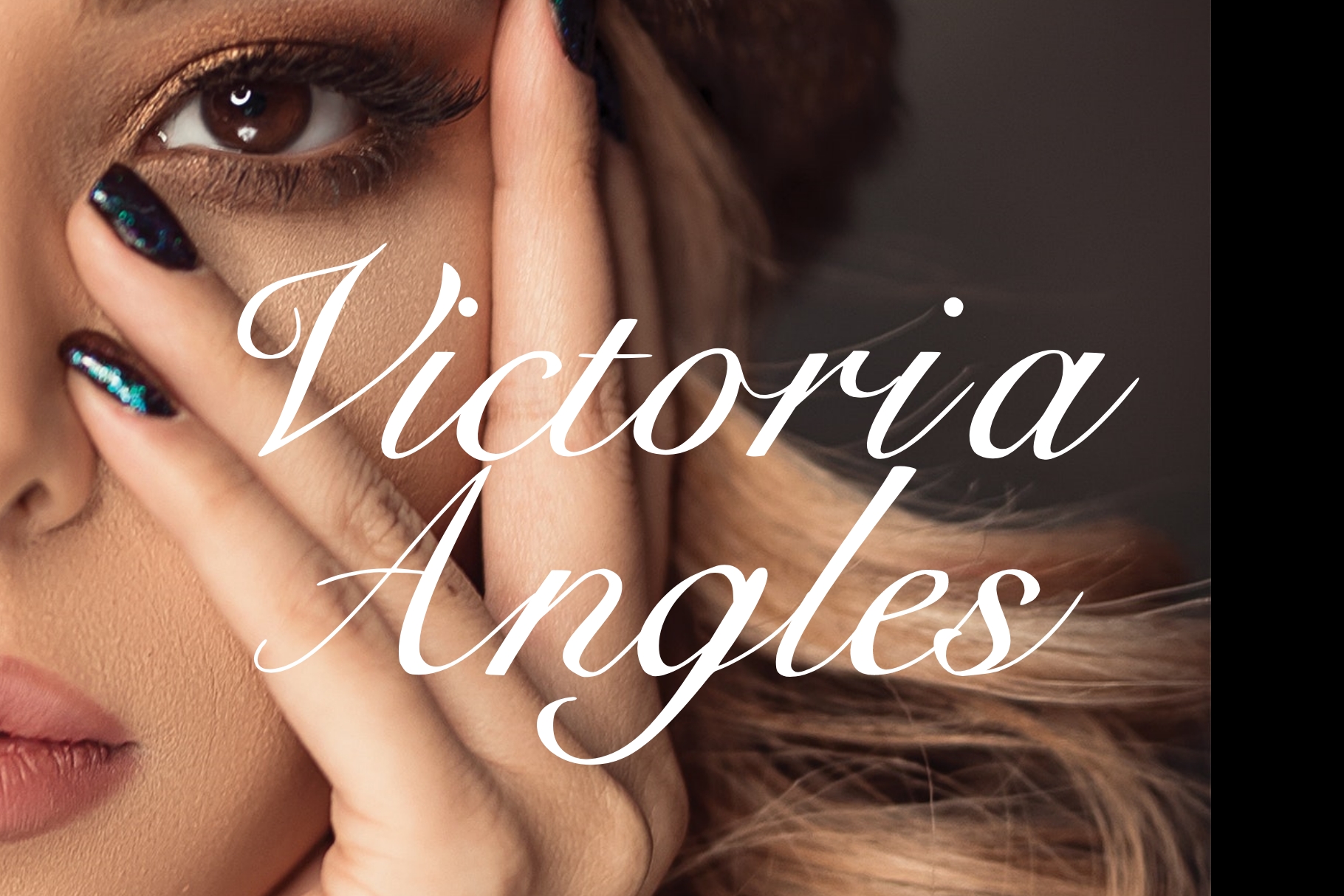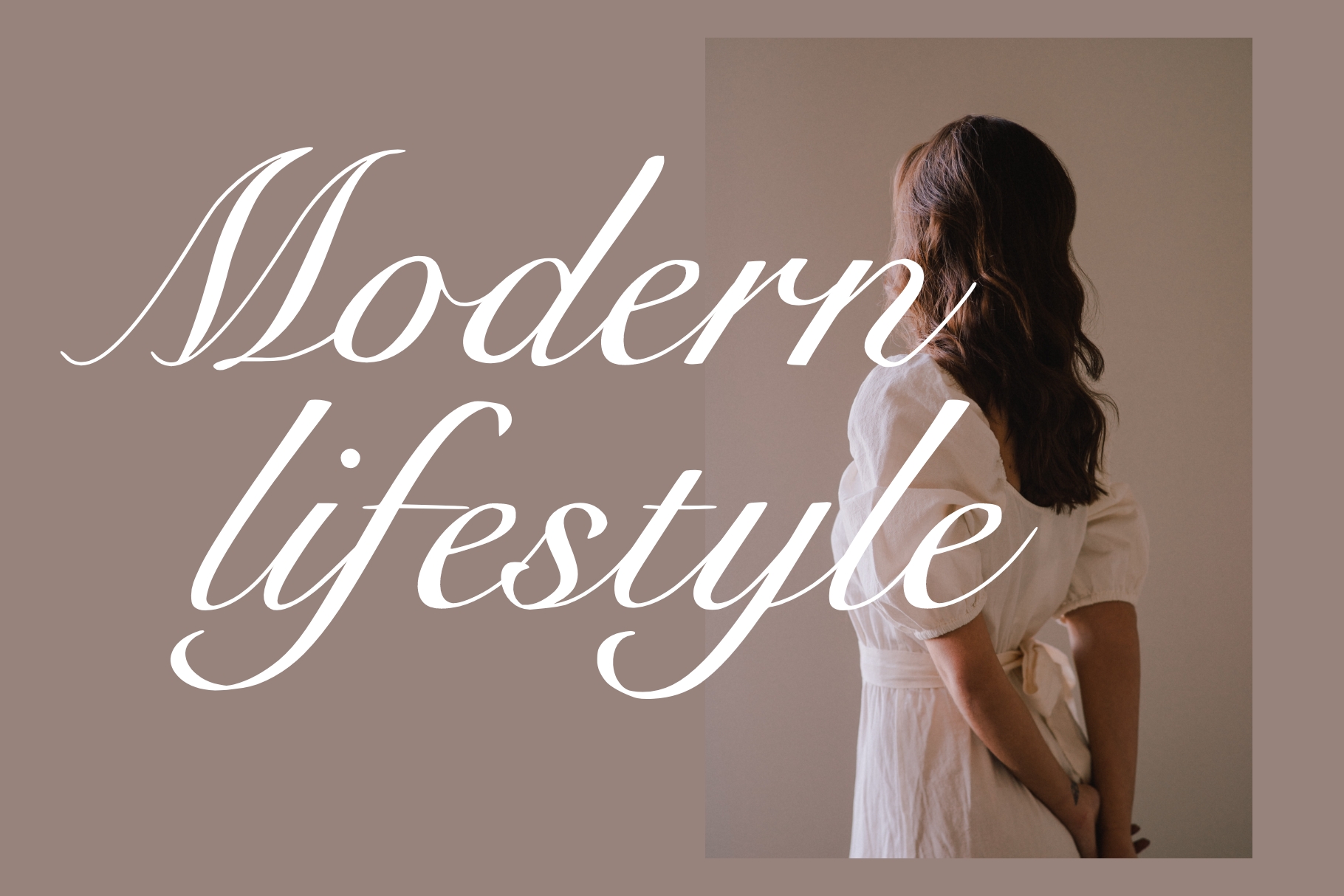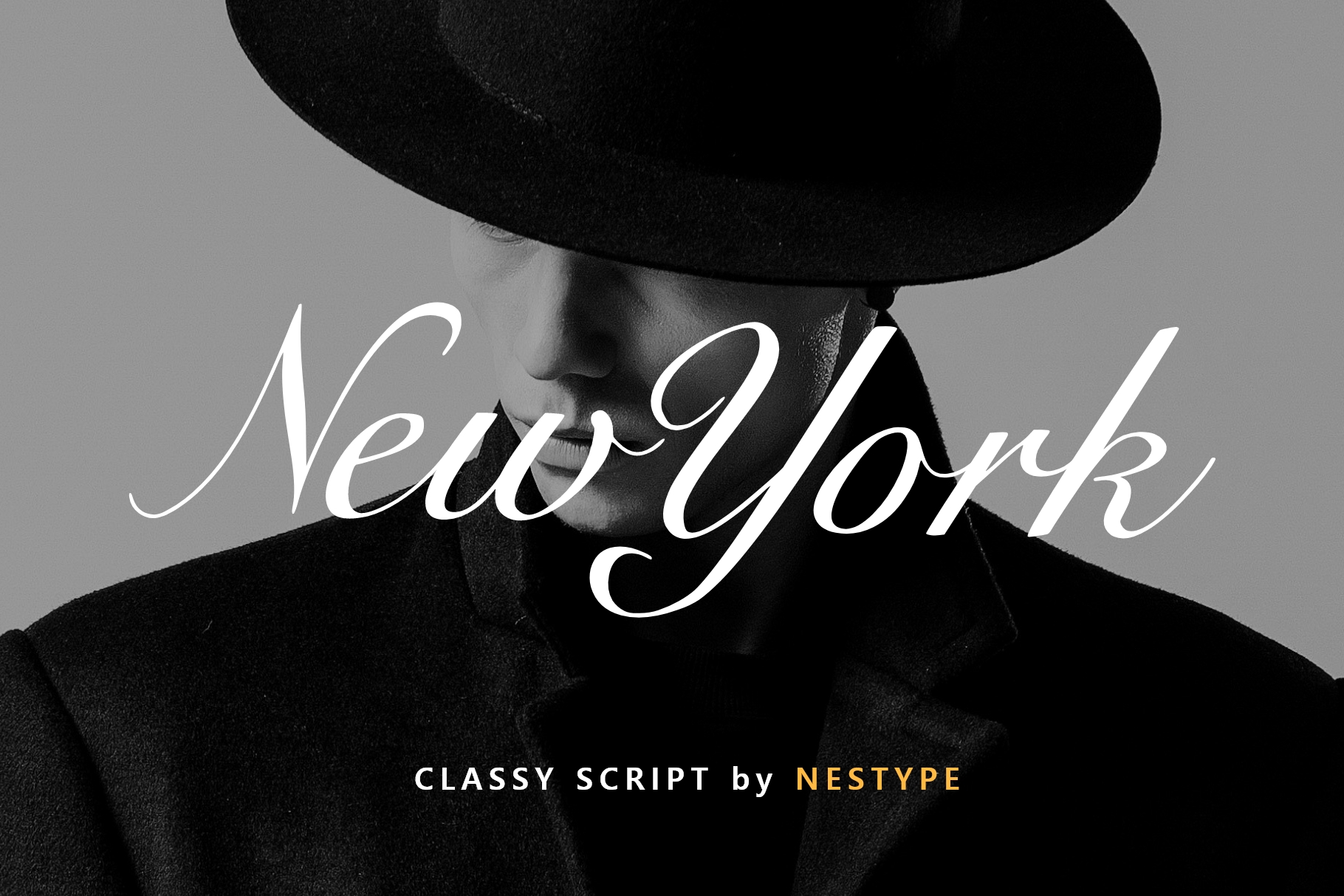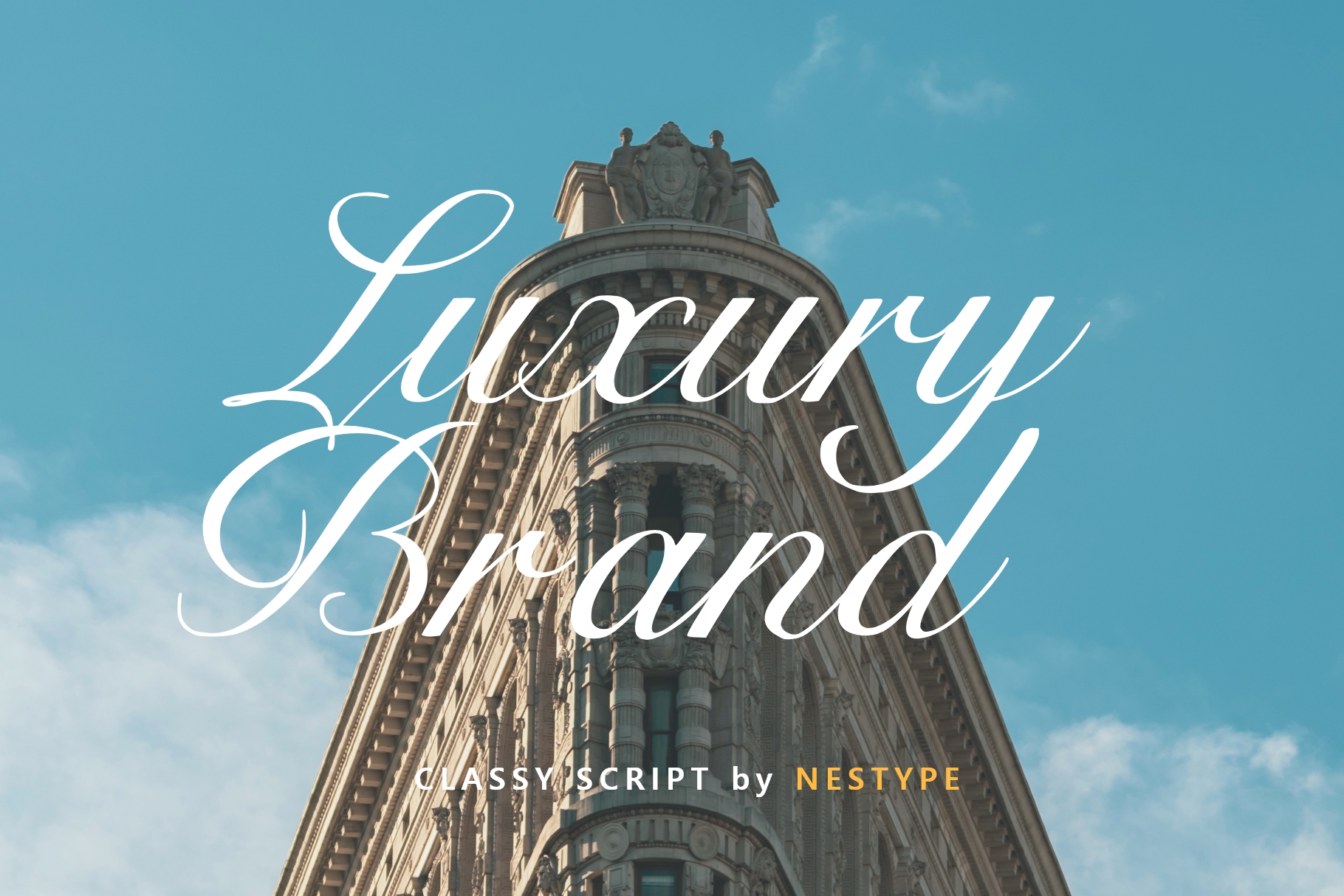
New York Typeface
New York Script Typeface feels equally charming and elegant. It looks stunning on wedding invitations, thank you cards, quotes, greeting cards, logos, business cards and every other design which needs a handwritten touch.